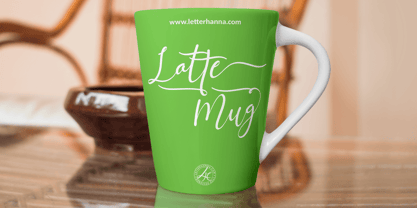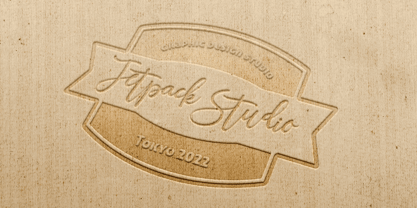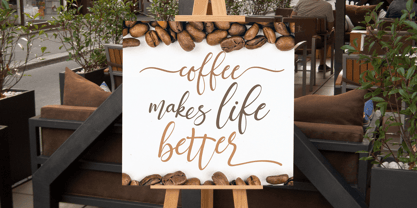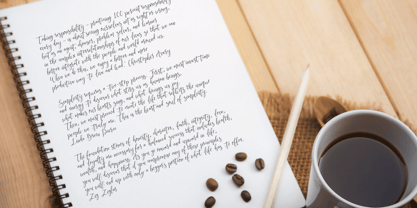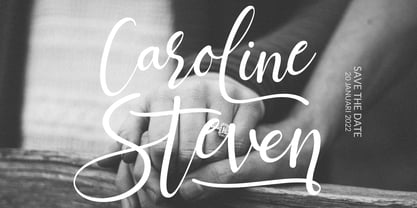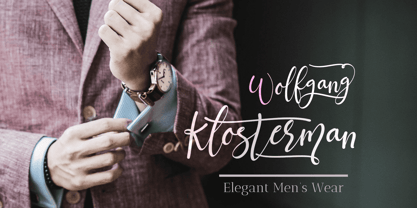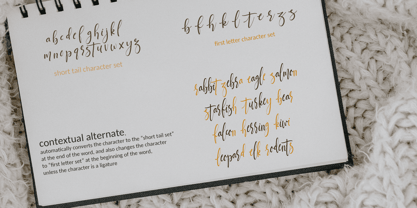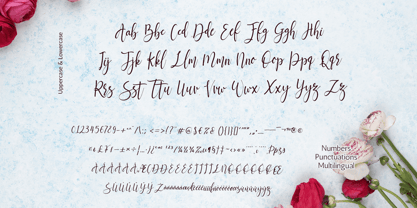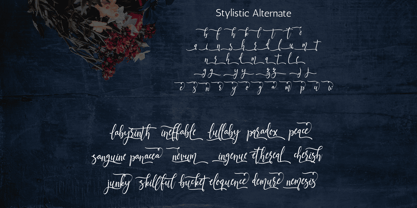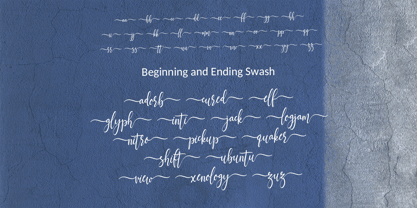
Jettiares
by Letterhanna Studio
The Jettiares Font Family was designed by Rinaldo Hasibuan and published by Letterhanna Studio. Jettiares contains 1 styles. More about this family
Jettiares is an elegant handwriting script font with a romantic, free-flowing character. It features dramatic stroke weight contrast — thick downstrokes tapering into delicate hairlines — paired with generous, expressive swashes on capitals and descenders. The letterforms feel naturally written yet artistically refined, sitting between casual calligraphy and formal cursive. The overall vibe is warm, intimate, and timeless — evoking handwritten love letters, vintage stationery, and artisan wedding suites. Its dark teal presentation against a crumpled parchment background reinforces a sense of heritage craftsmanship and quiet luxury.
Designers: Rinaldo Hasibuan
Foundry: Letterhanna Studio